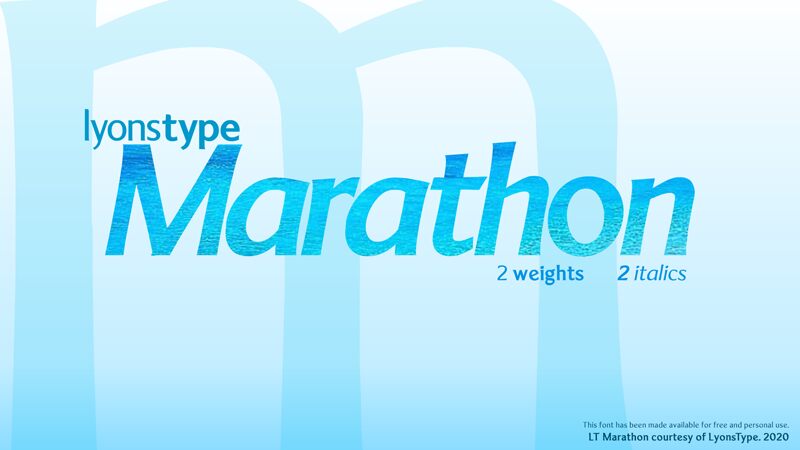
For the font having an "ancient humanist" style, it can imaginably be used in contents such as brochures, posters, and something that revolves around ancient times.
LT Marathon